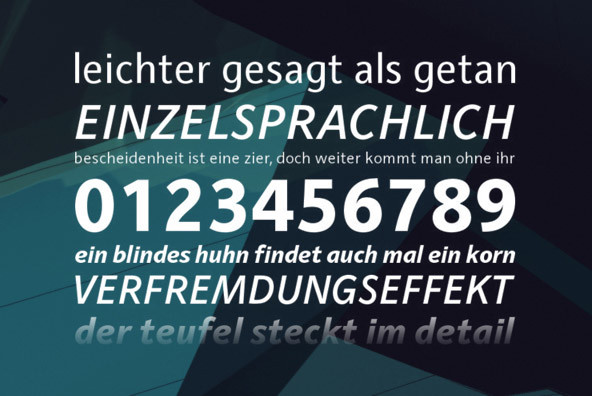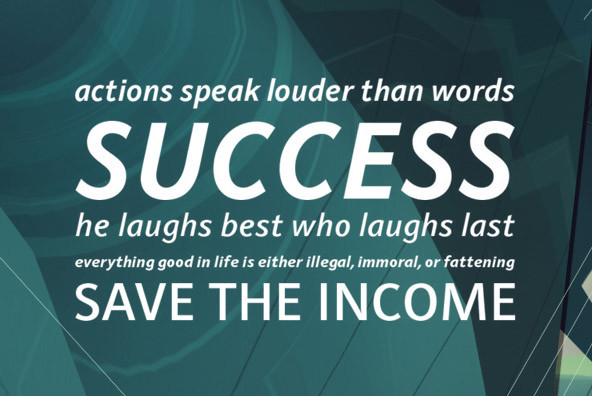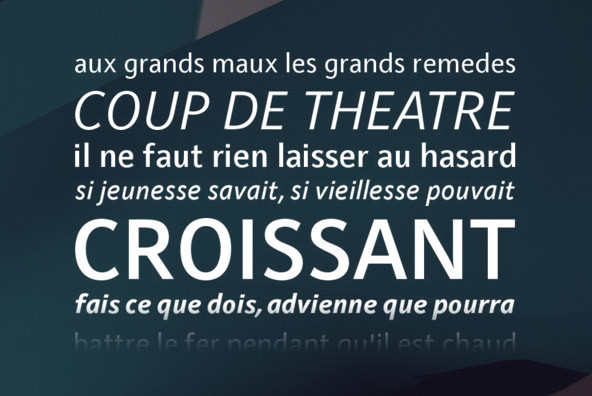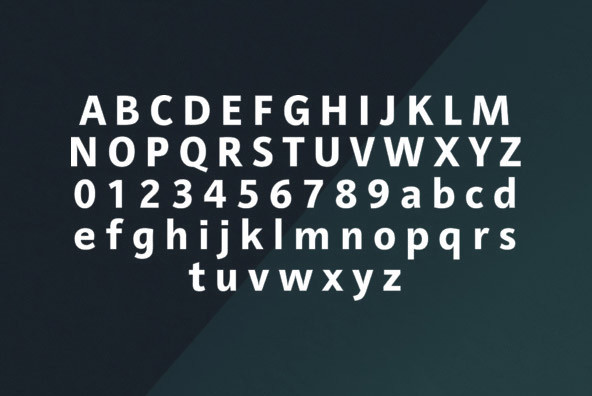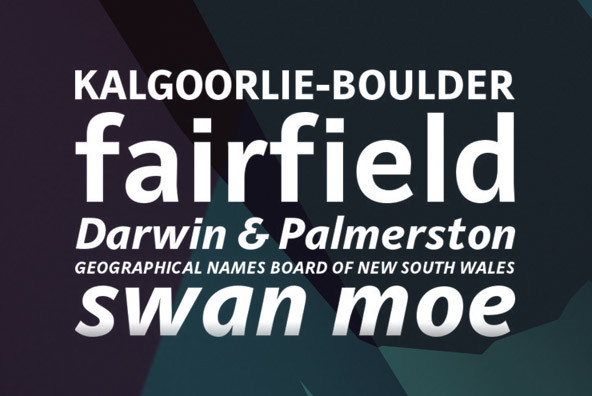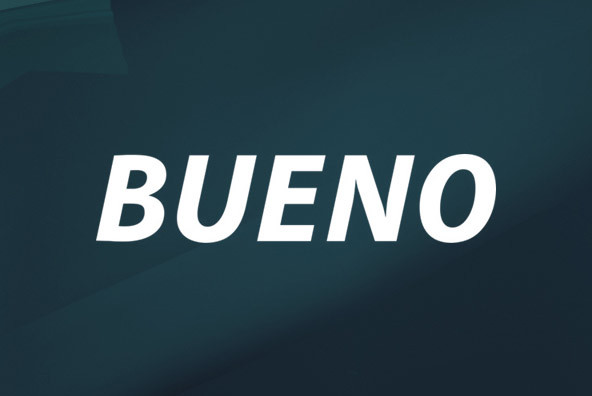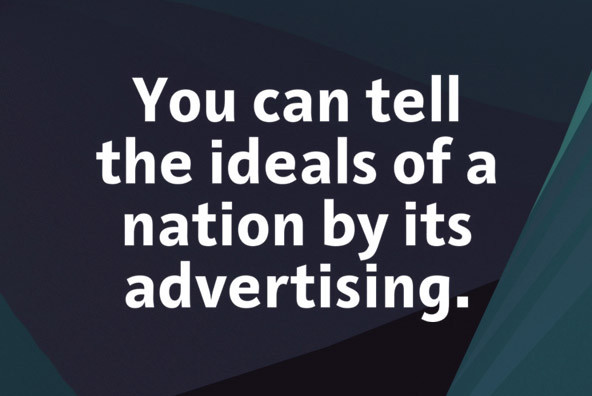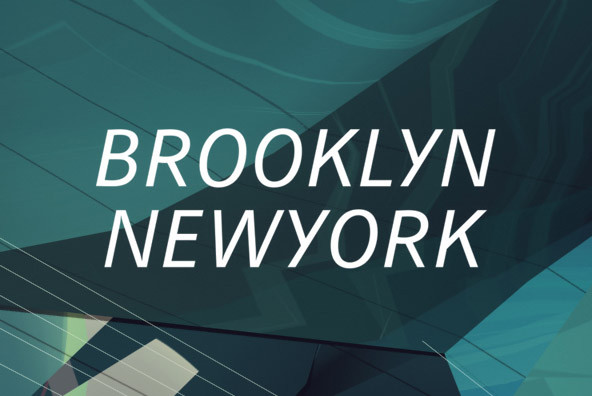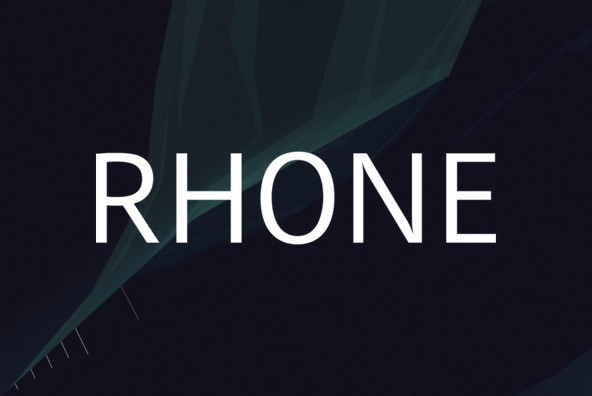
Quite unusual, Musenberg started his Raldo design with the italic. However, he managed to preserve the temperament and vividness of the italic in the roman without questioning the stability of the individual characters.
Raldo is a modern Sans Serif family already quite popular in Germany. The German IGEPA group chose Raldo as corporate typeface family.
Raldo Re Pro is the updated version of Raldo, released in 2010/2011.